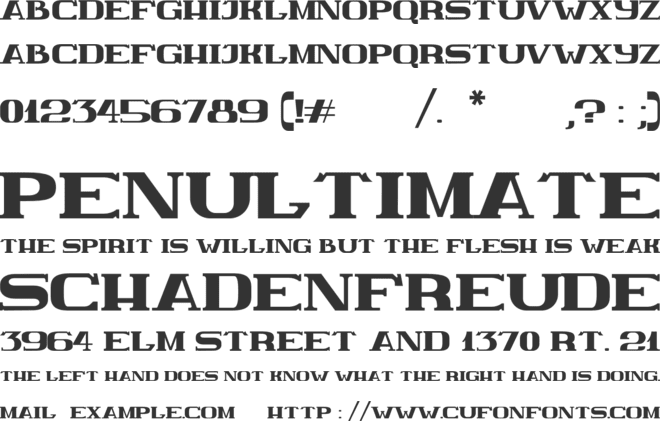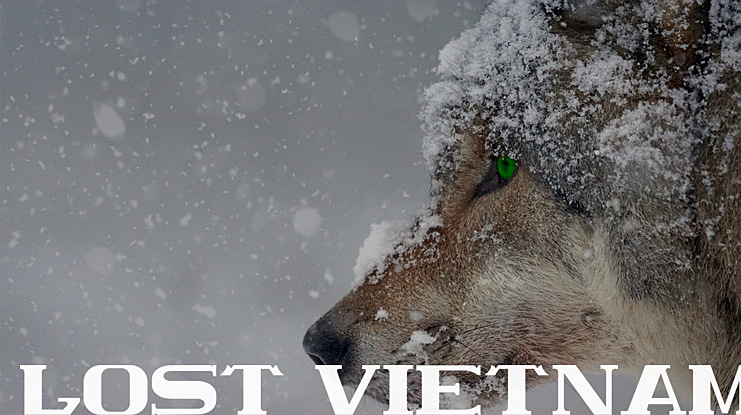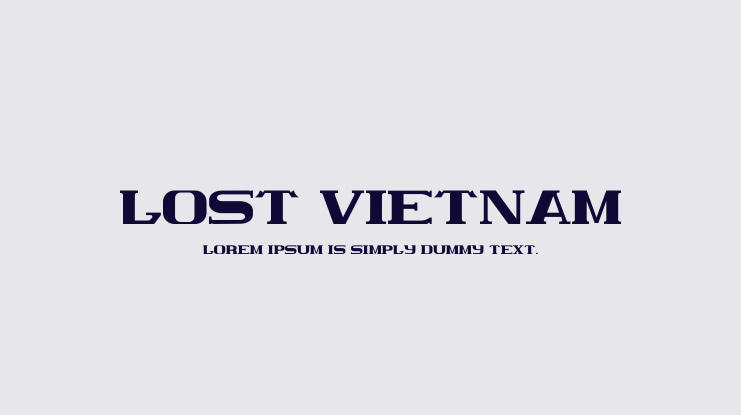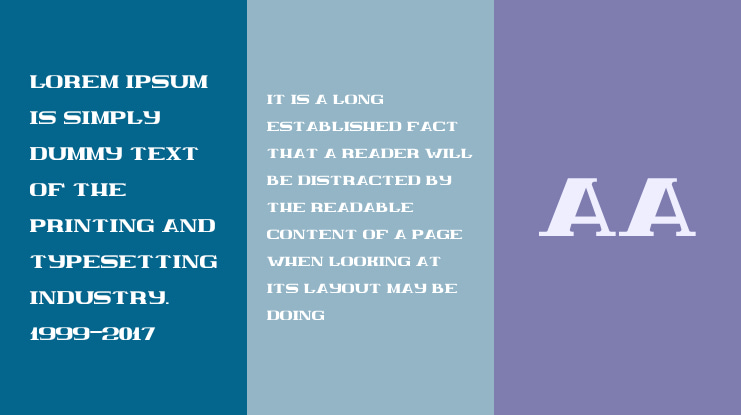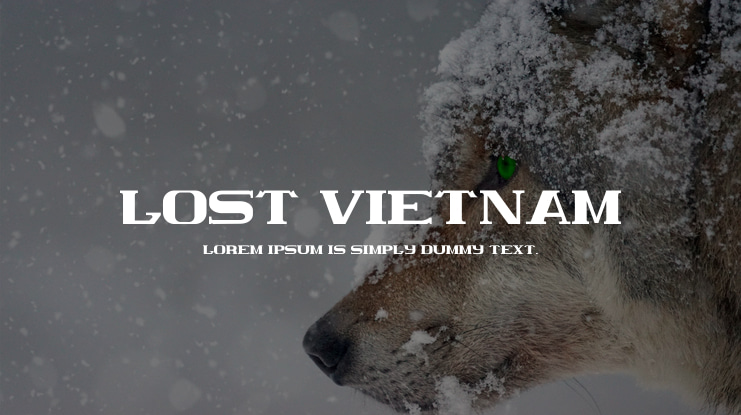
Lost Vietnam Font
Lost Type-Lost Vietnam is a typeface based on vintage font style in Vietnam around 80s and 90s. Insparation by comercial billboards around big city in Vietnam like Hanoi and Ho Chi Minh. By combining traditional features with modern type style, Lost Type have retro feels but also works great with nowadays design. The overall theme is to make a experimental typeface that is bold and original.